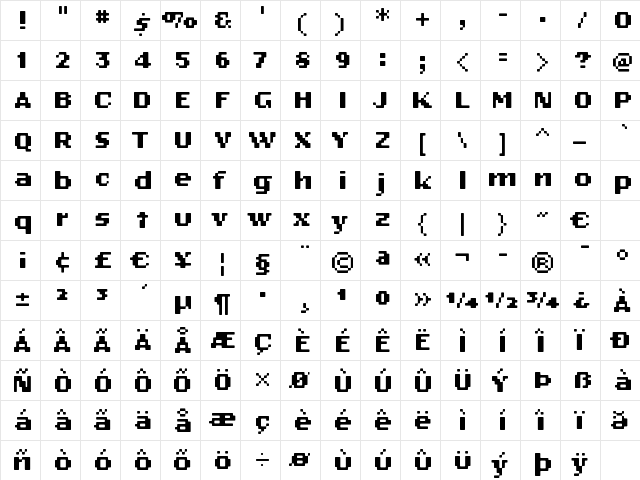
LRPlusNine WideBAlt
| Designer | Zuzana Licko |
Design Context for LRPlusNine Typeface
LRPlusNine takes a measured approach to typography — its balanced proportions and neutral character make it a reliable workhorse for both digital and print work.